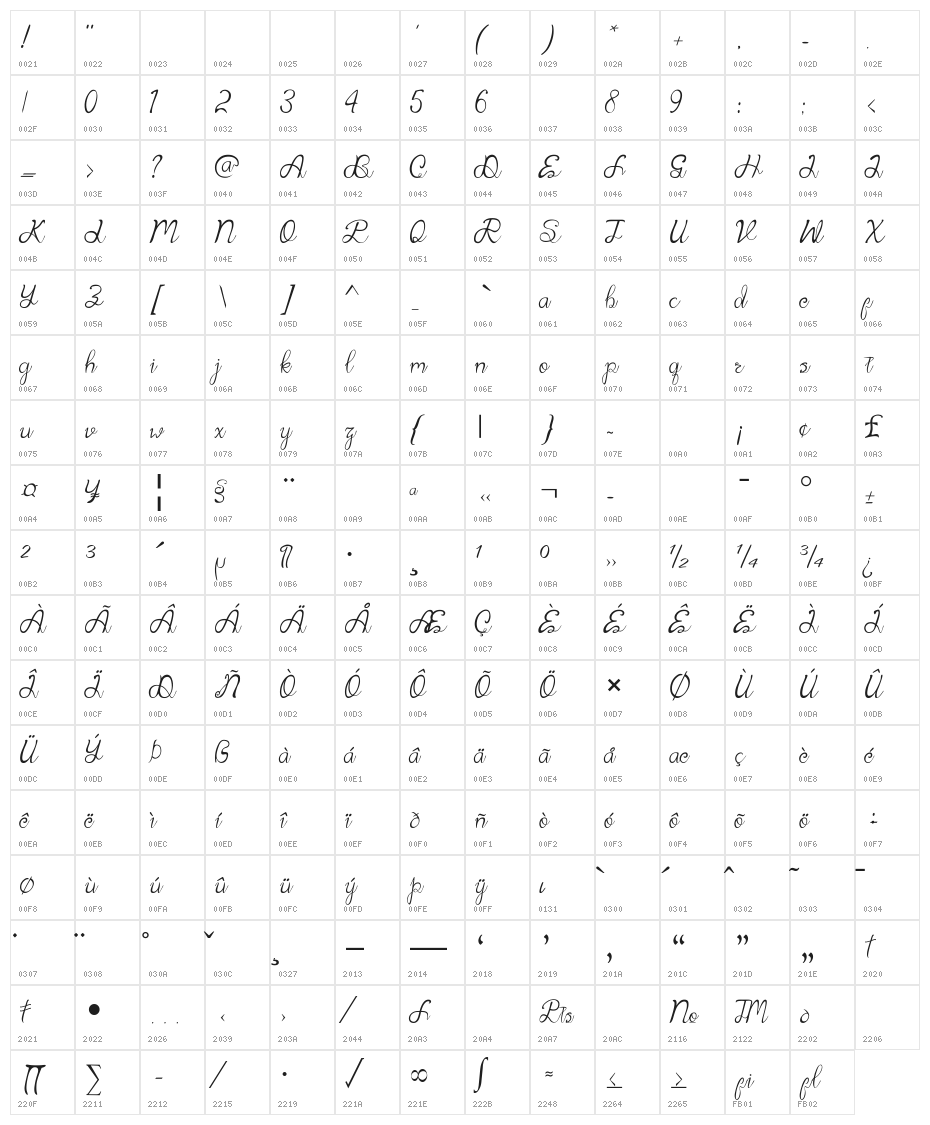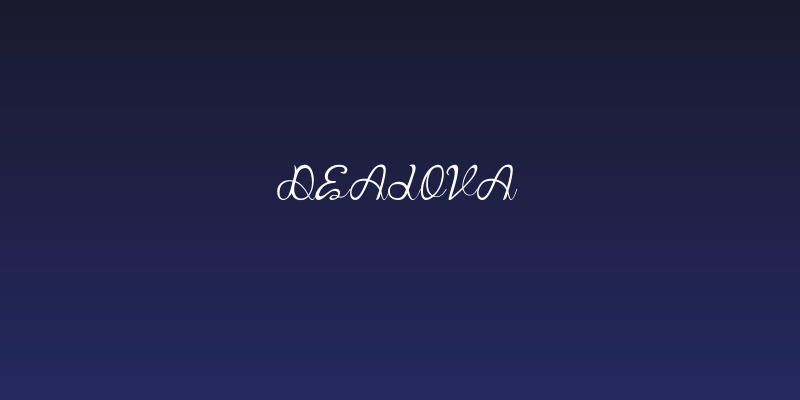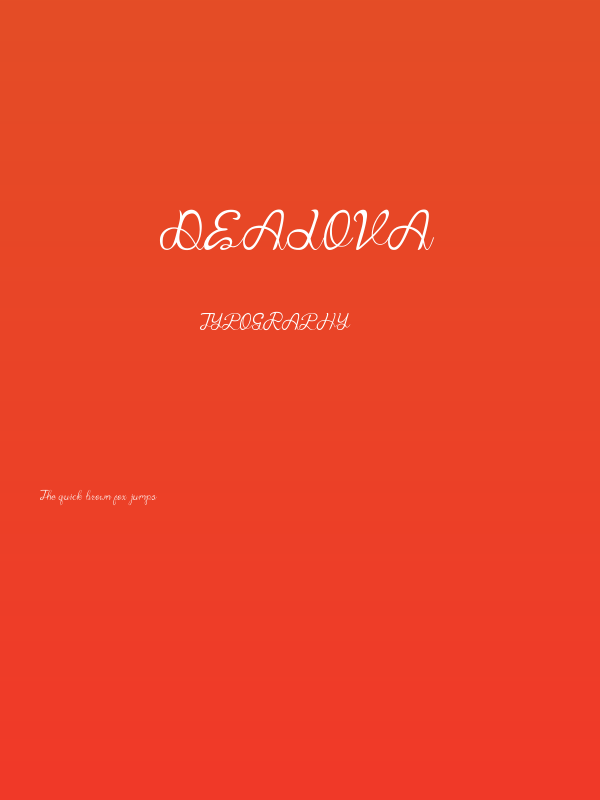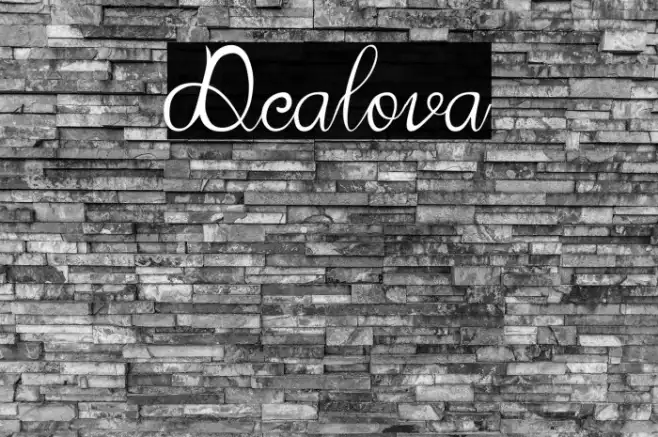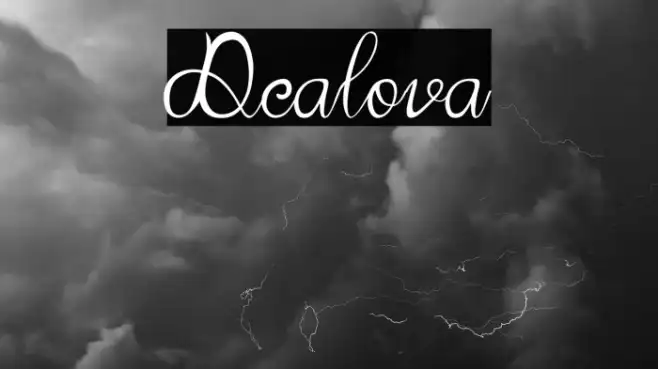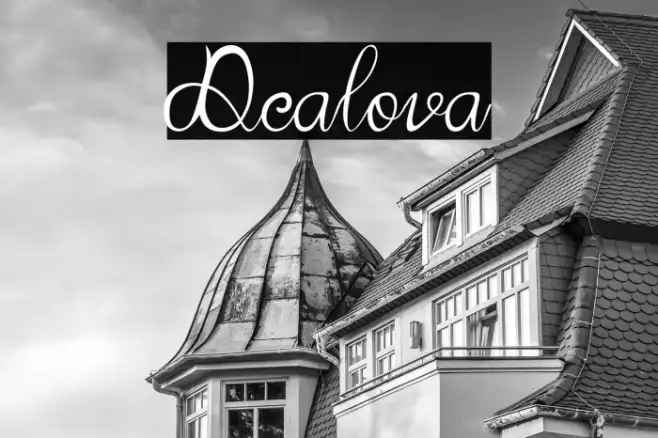
Dealova Font
Dealova Description
This elegant script font features a flowing, cursive style with intricate loops and swashes that give it a sophisticated and artistic flair. The uppercase letters are particularly ornate, with each character exhibiting unique flourishes that enhance its decorative appeal. The lowercase letters maintain a consistent style, offering a smooth and connected appearance that mimics natural handwriting. The numerals are designed to complement the letters, maintaining the same graceful curves and fluidity. Special characters are thoughtfully integrated, ensuring they blend seamlessly with the overall aesthetic. This font exudes a sense of elegance and refinement, making it ideal for projects that require a touch of class and creativity.
| Overall Style | Elegant, Artistic |
| Proposed Projects | Ideal for wedding invitations, greeting cards, branding, and elegant logo designs. |